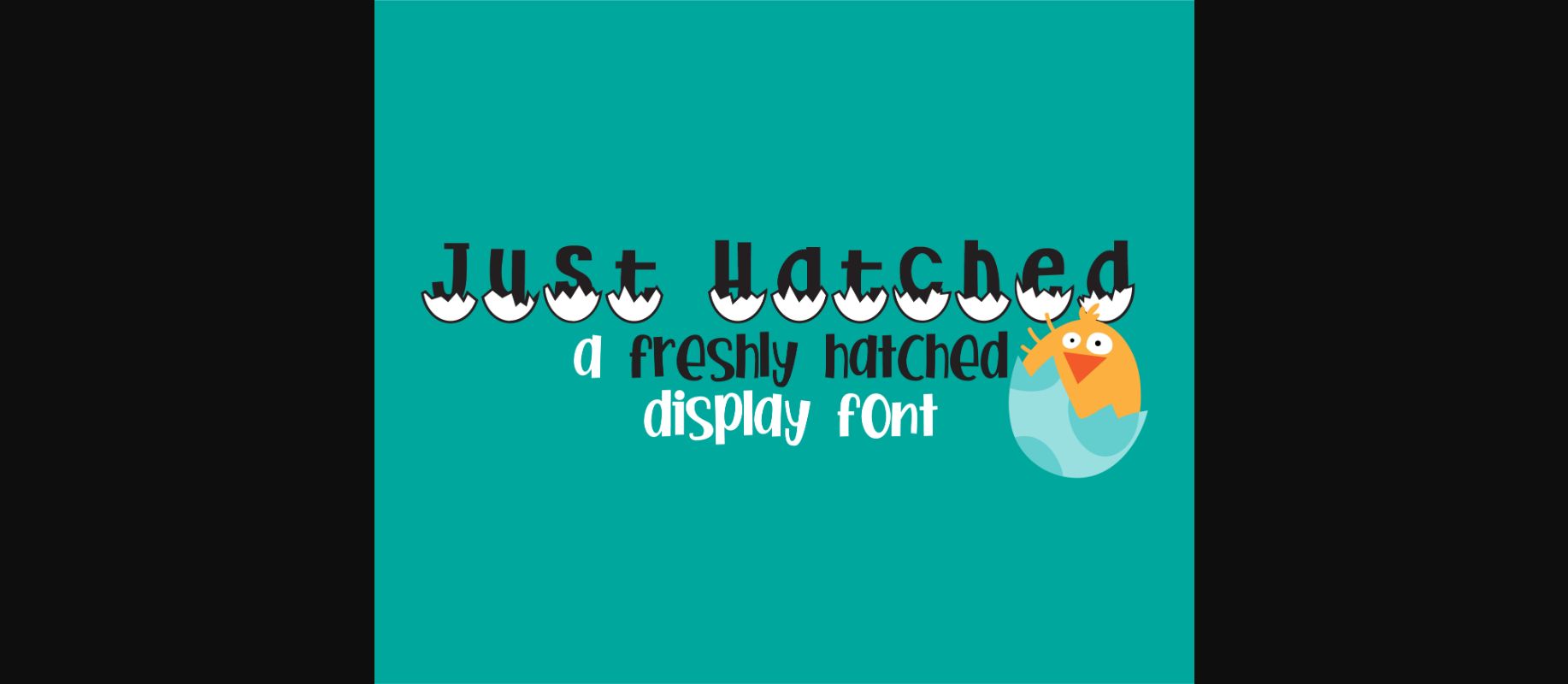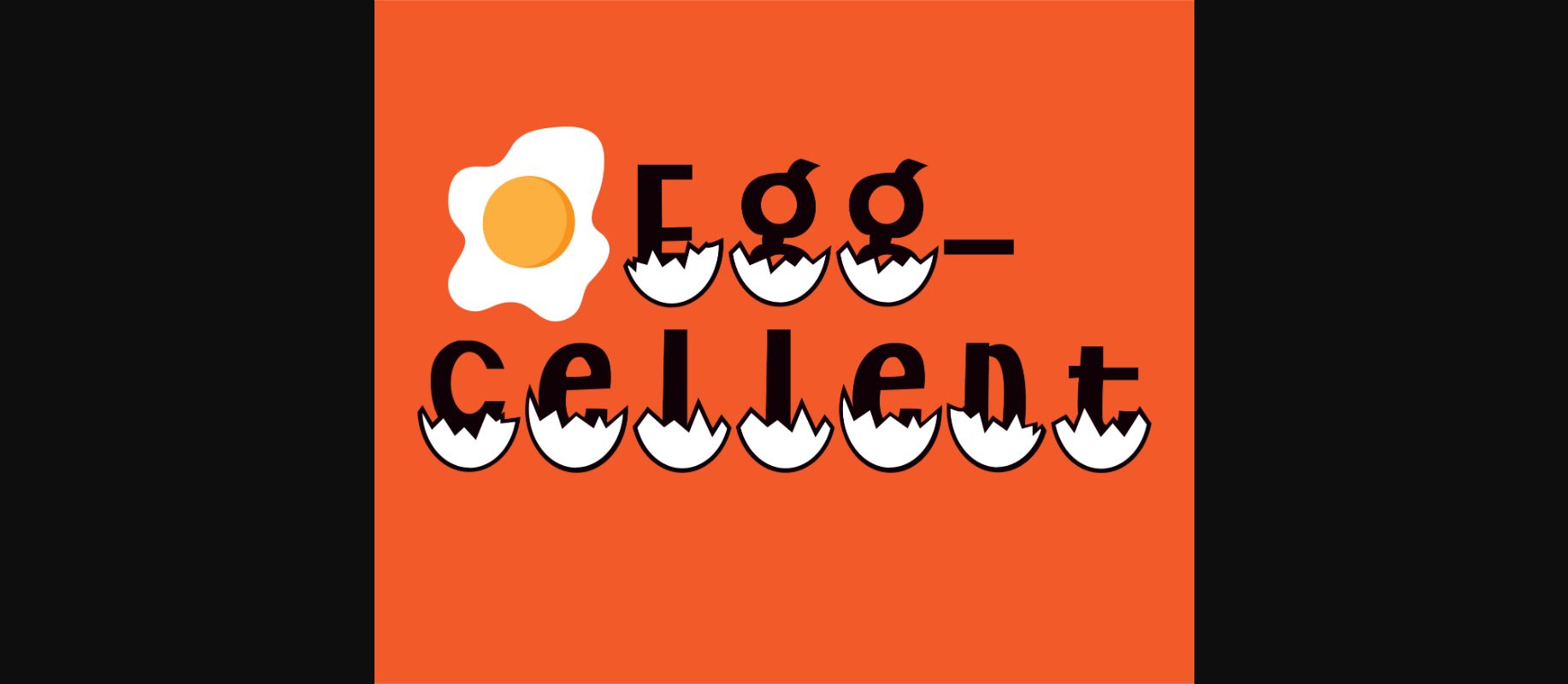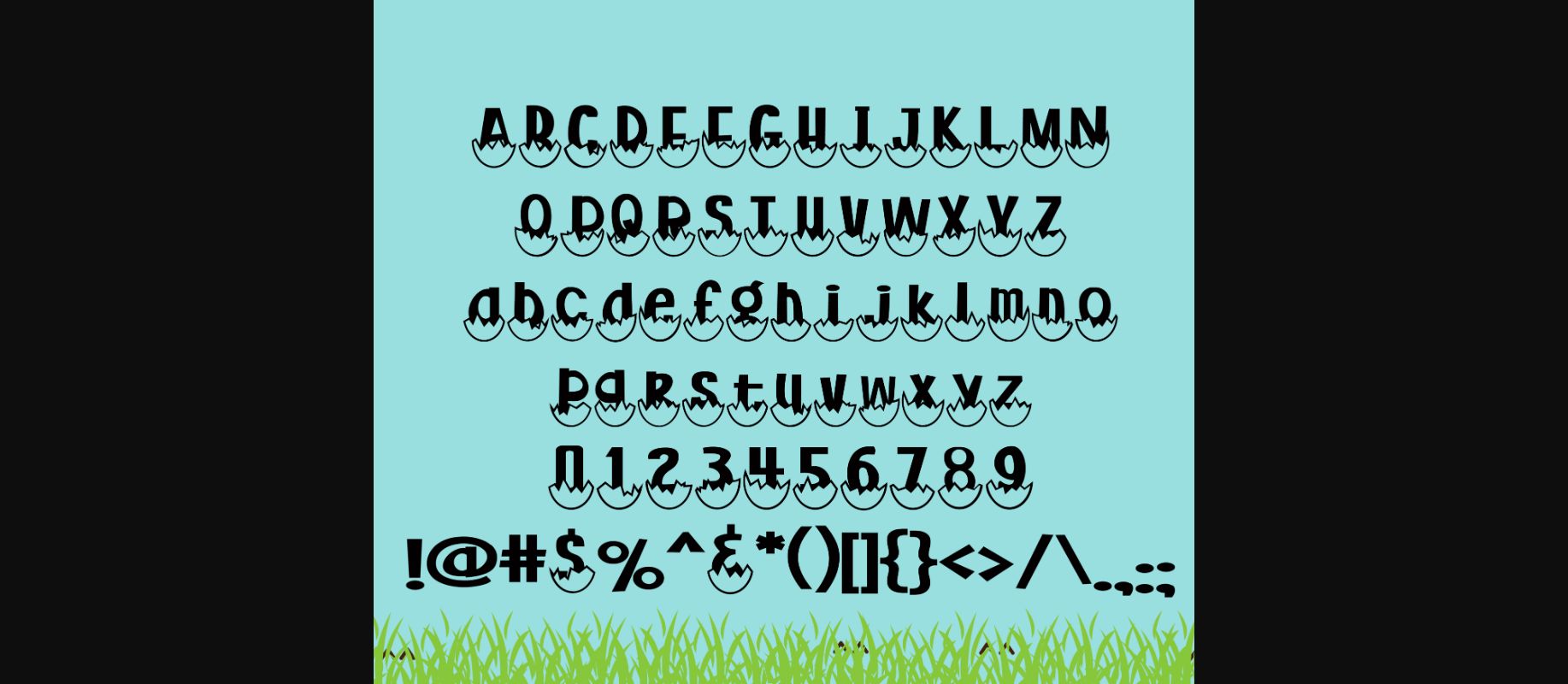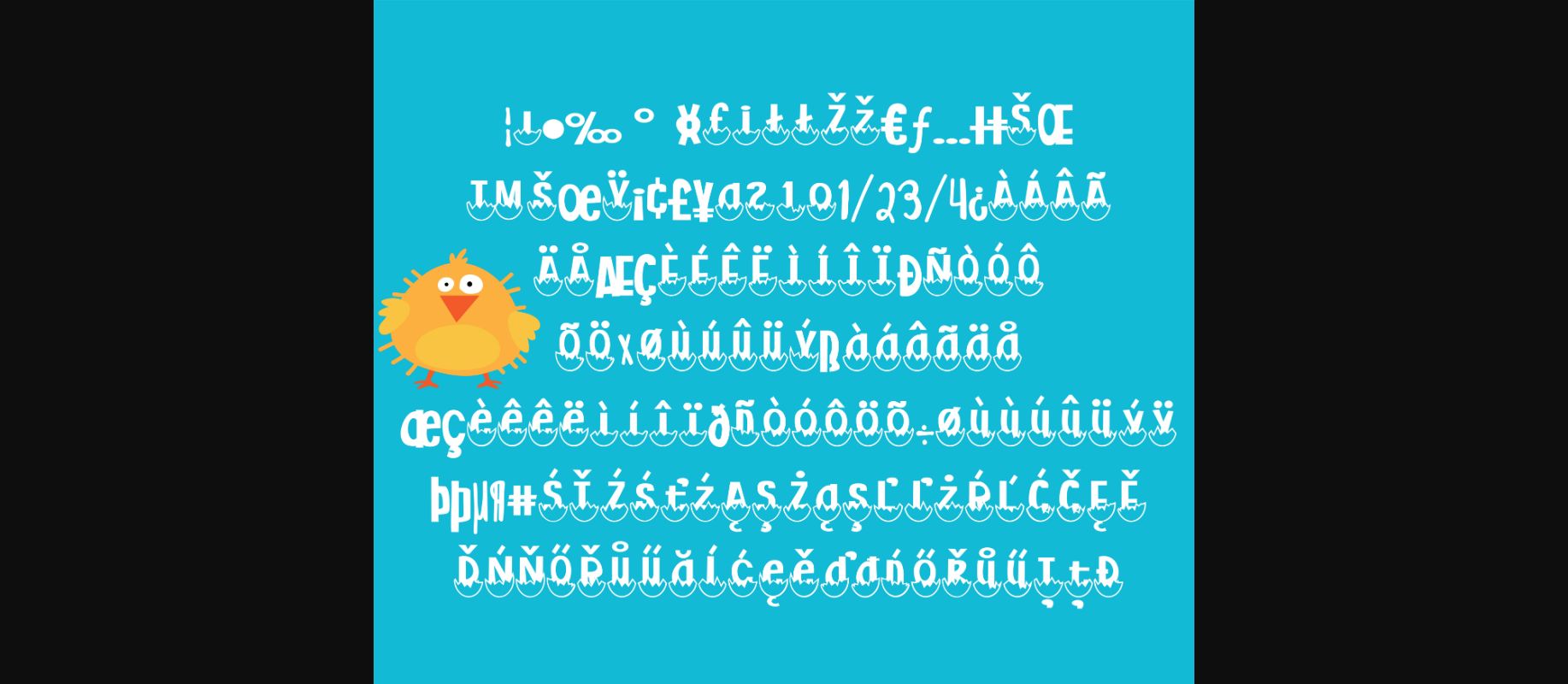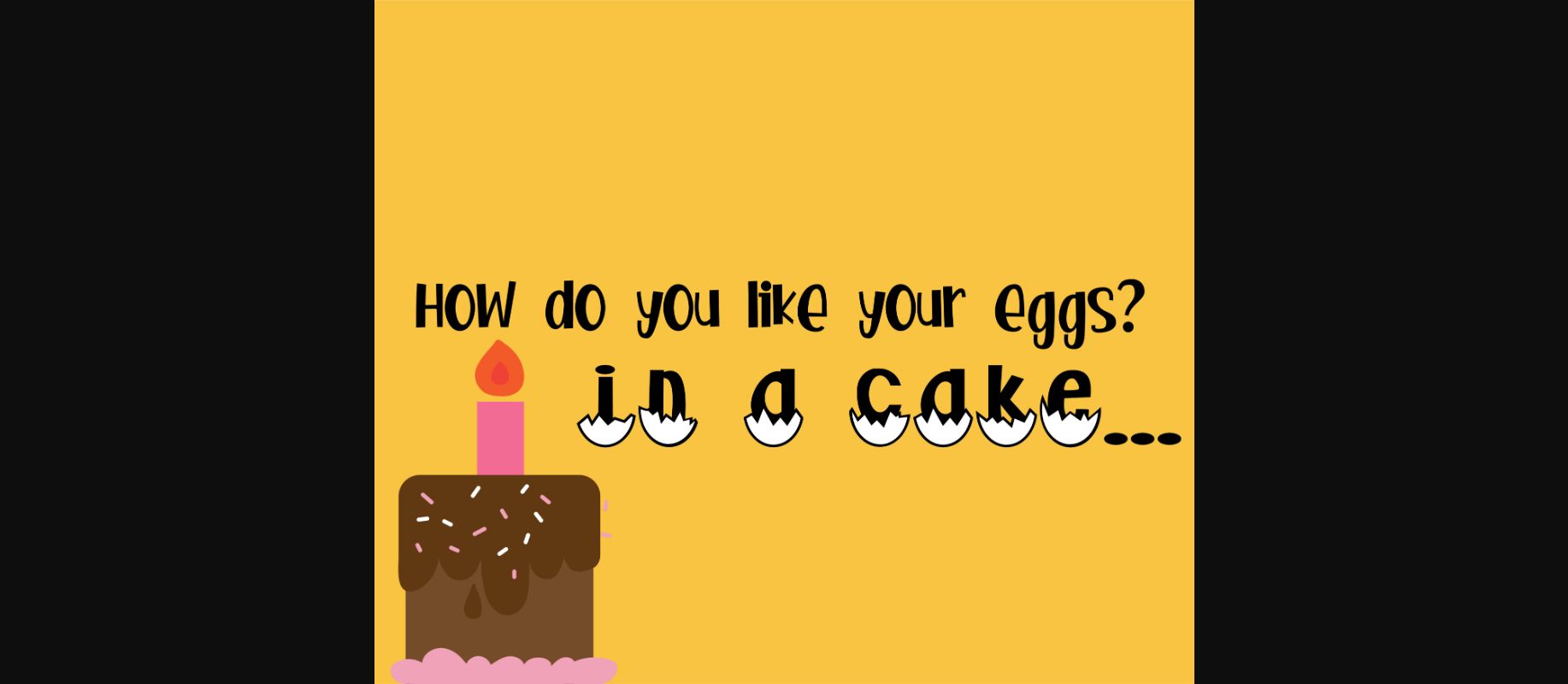
Just Hatched Font
About Just Hatched Font
Just Hatched is a cute, blocky font that is actively hatching out of eggs! It’s a great font for titles, displays, and posters – and especially looks wonderful in children’s themes.